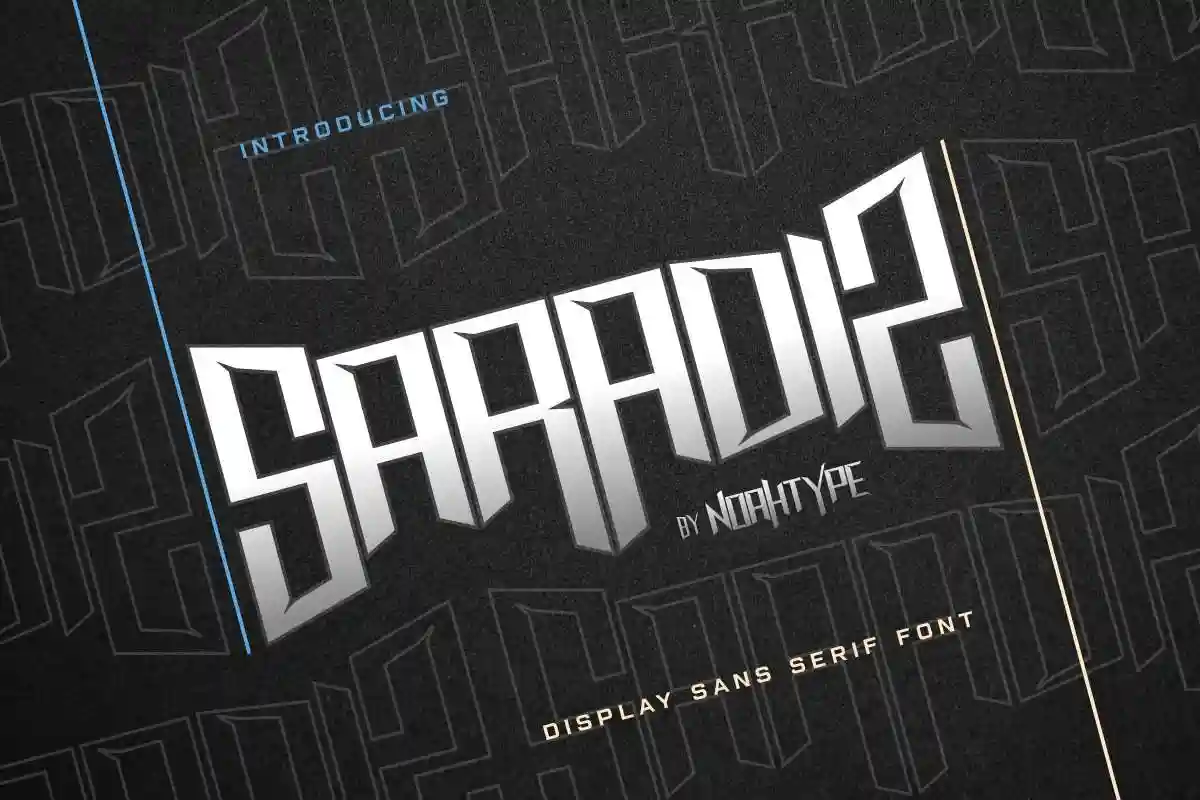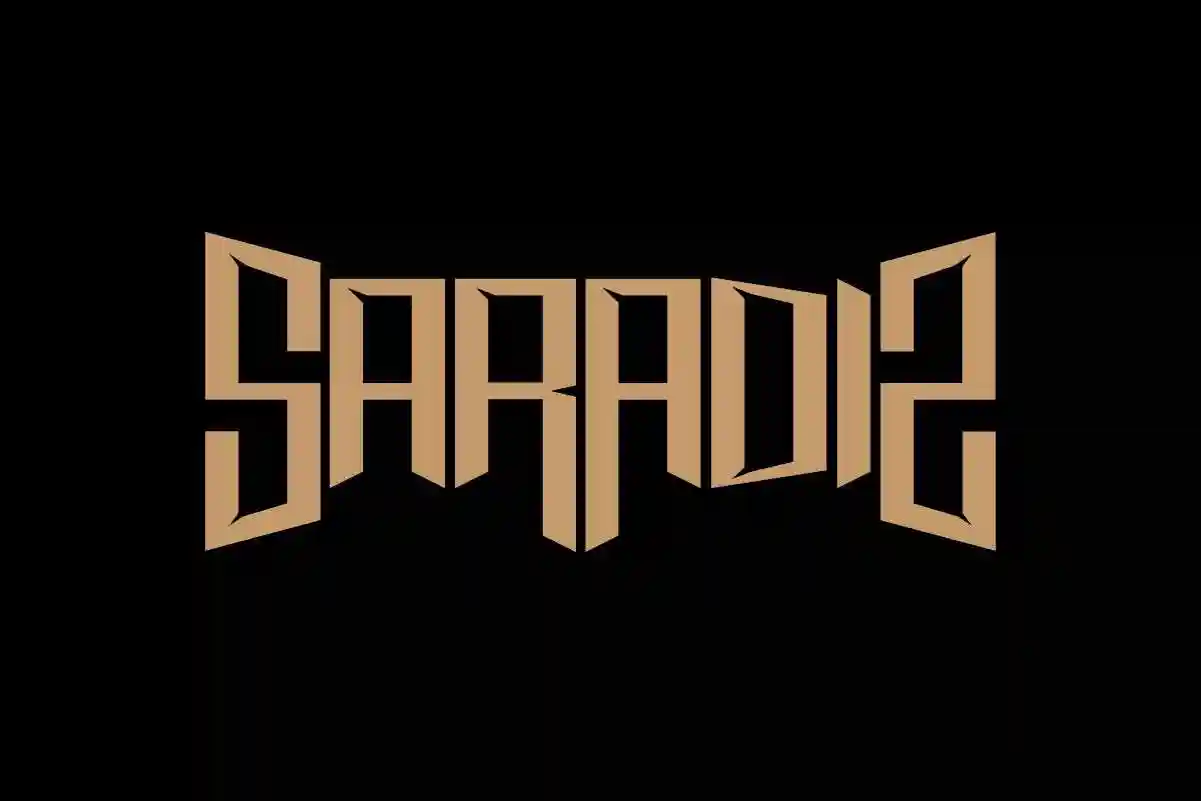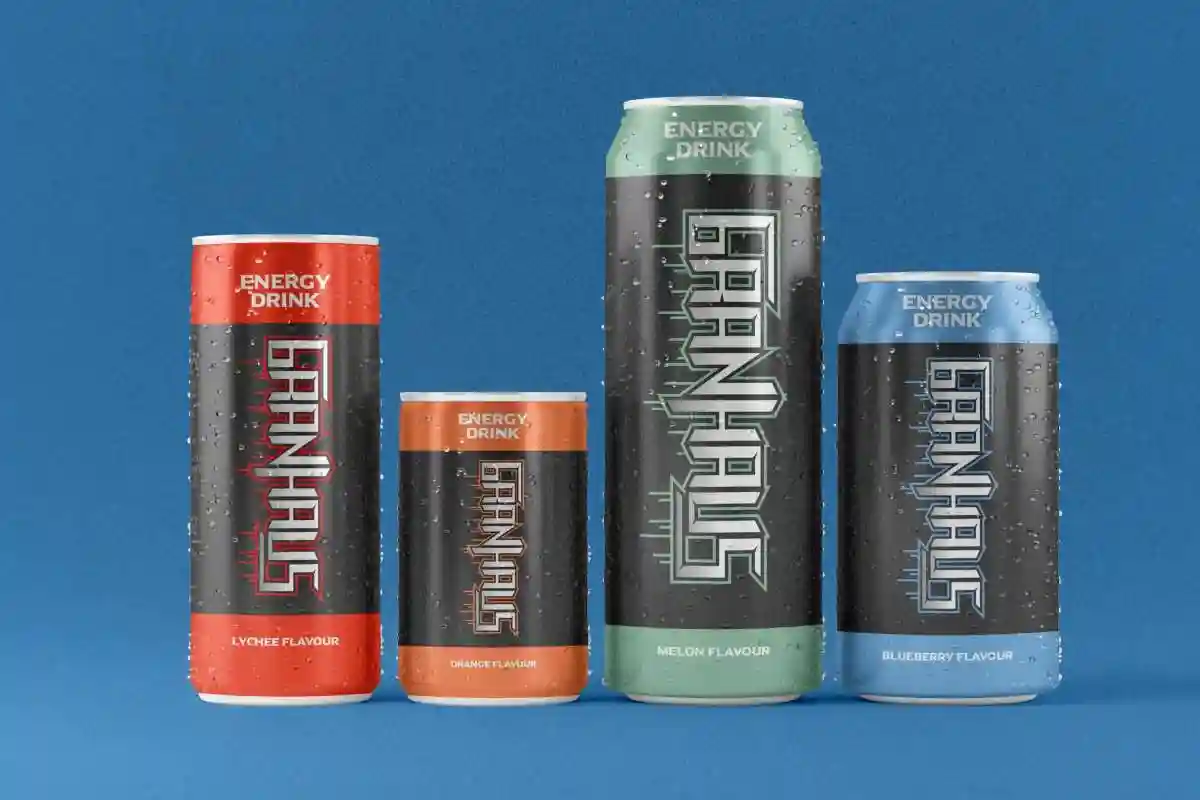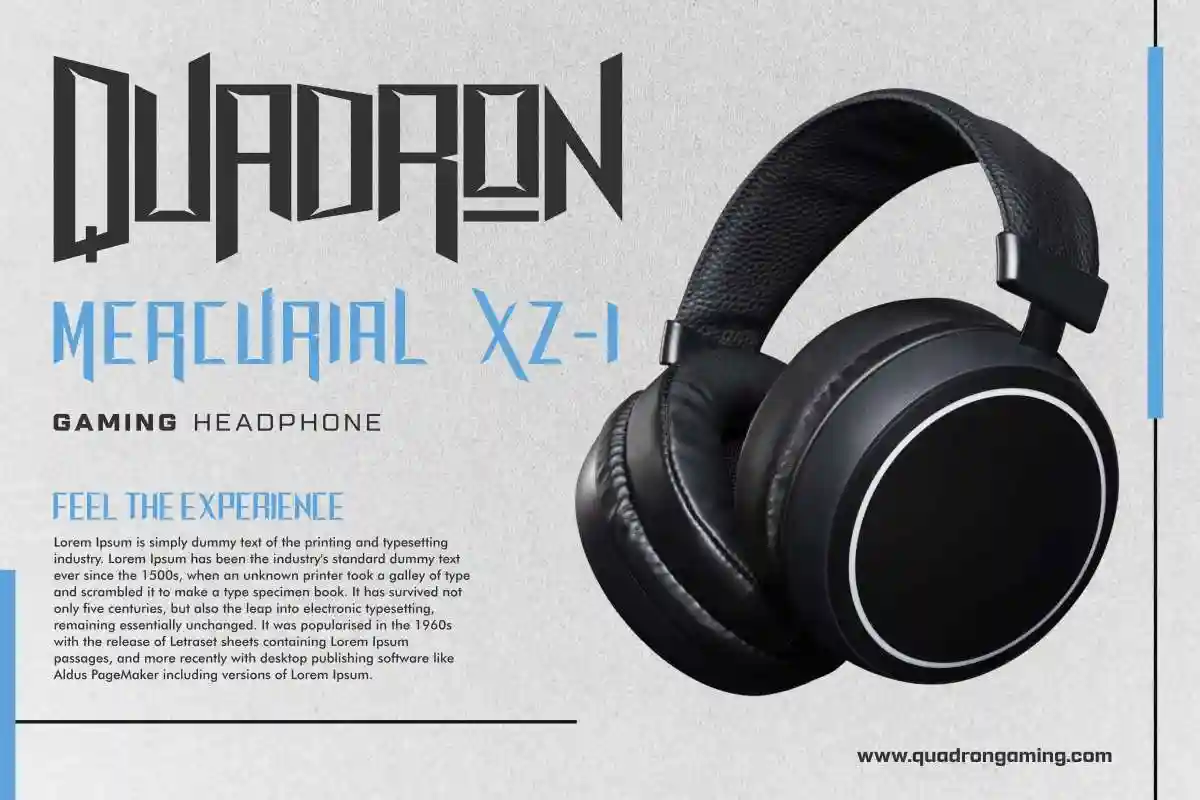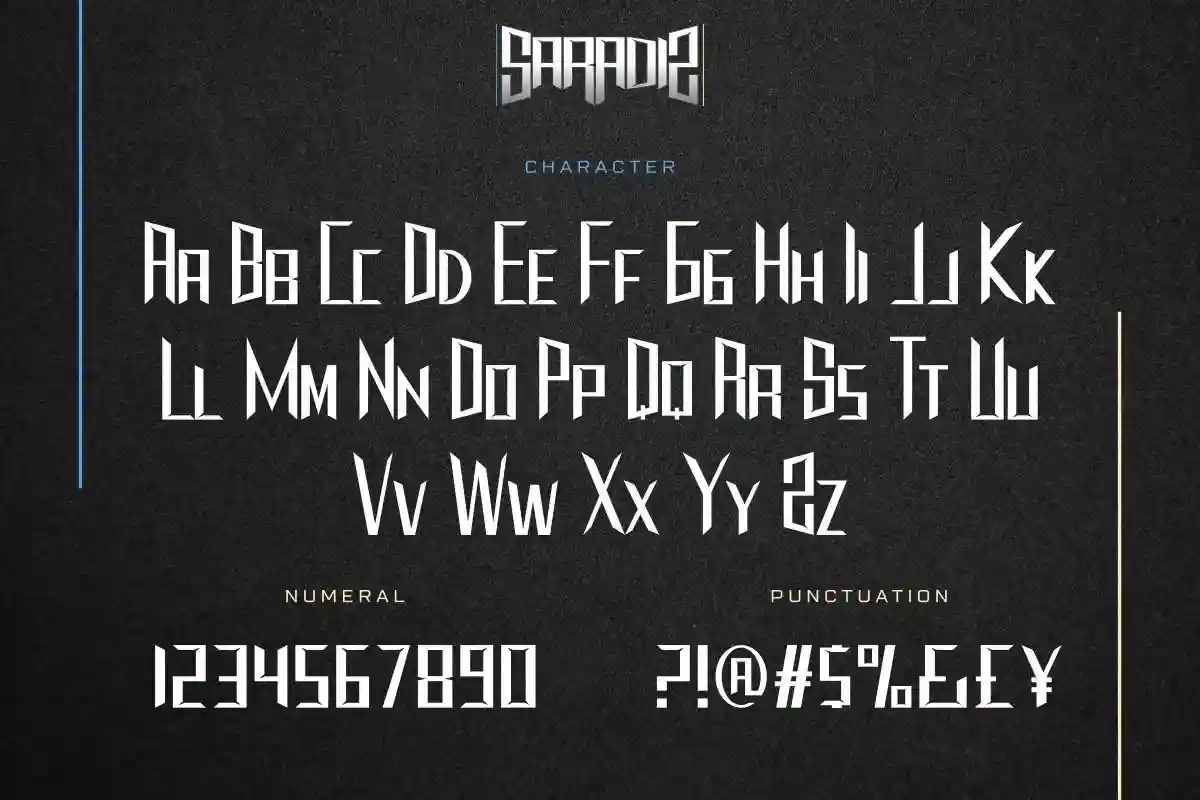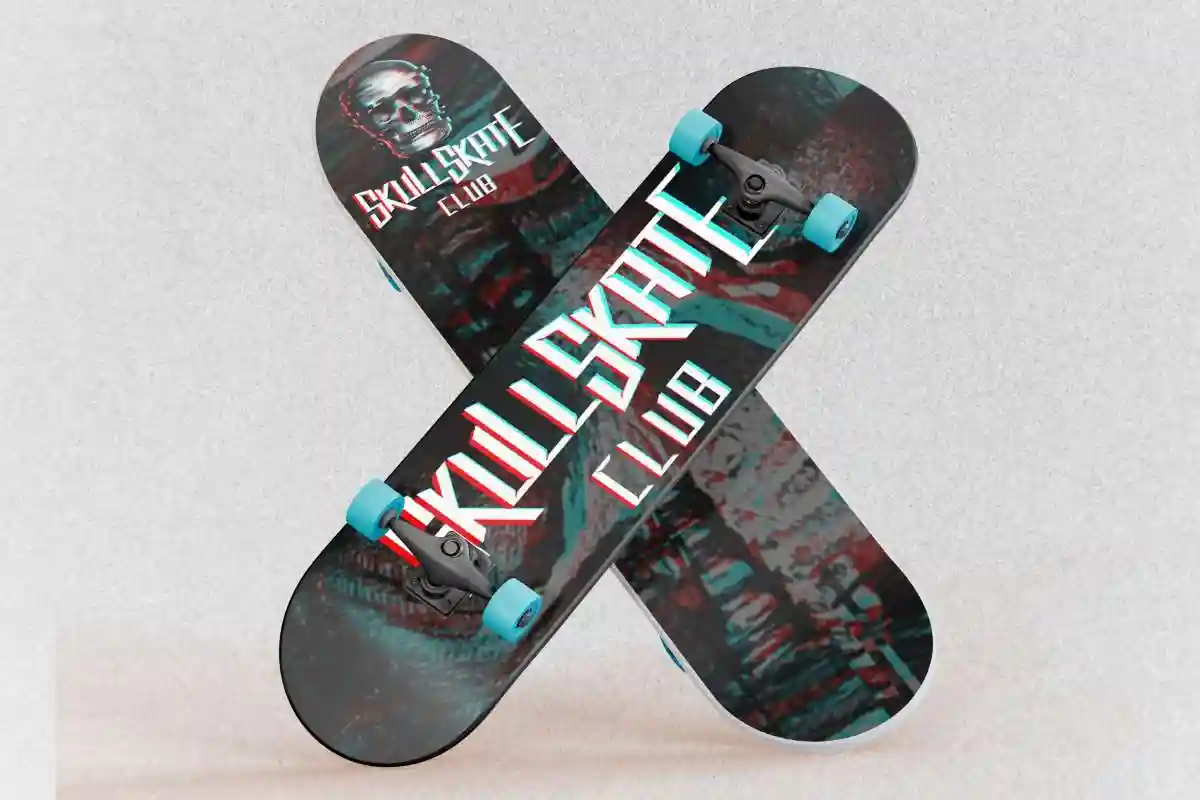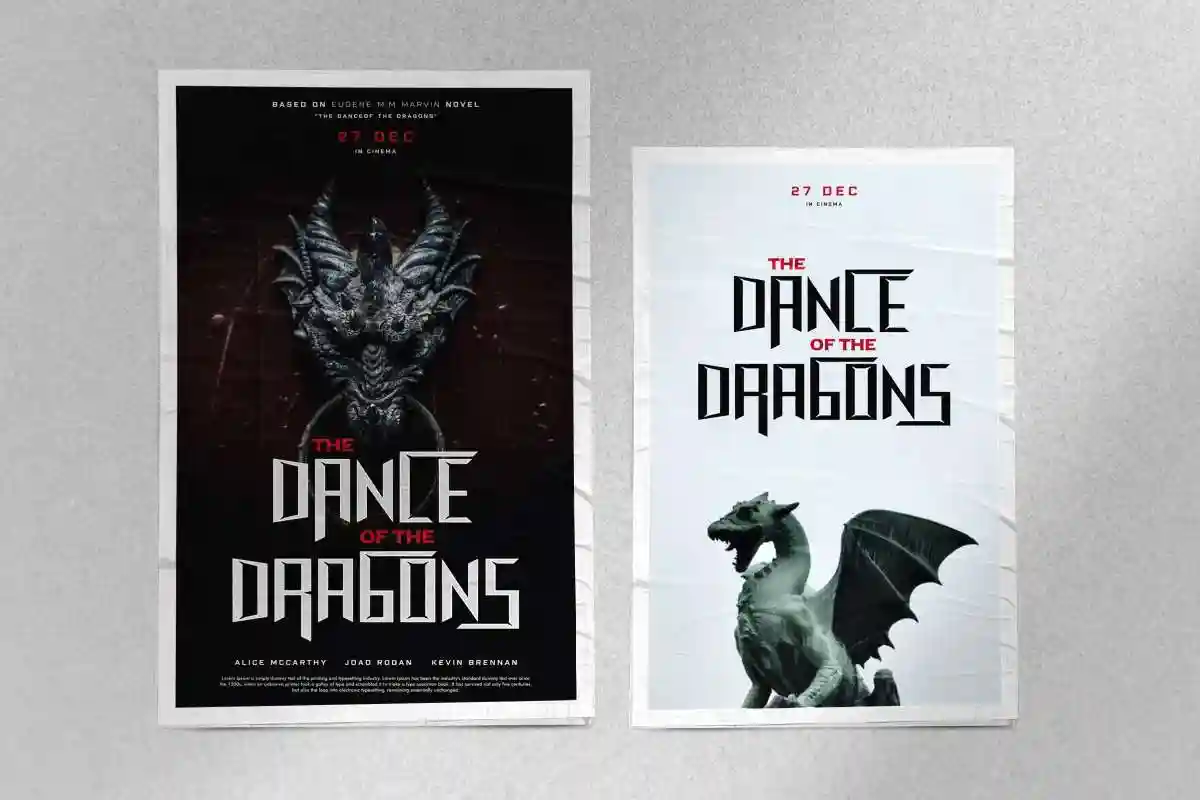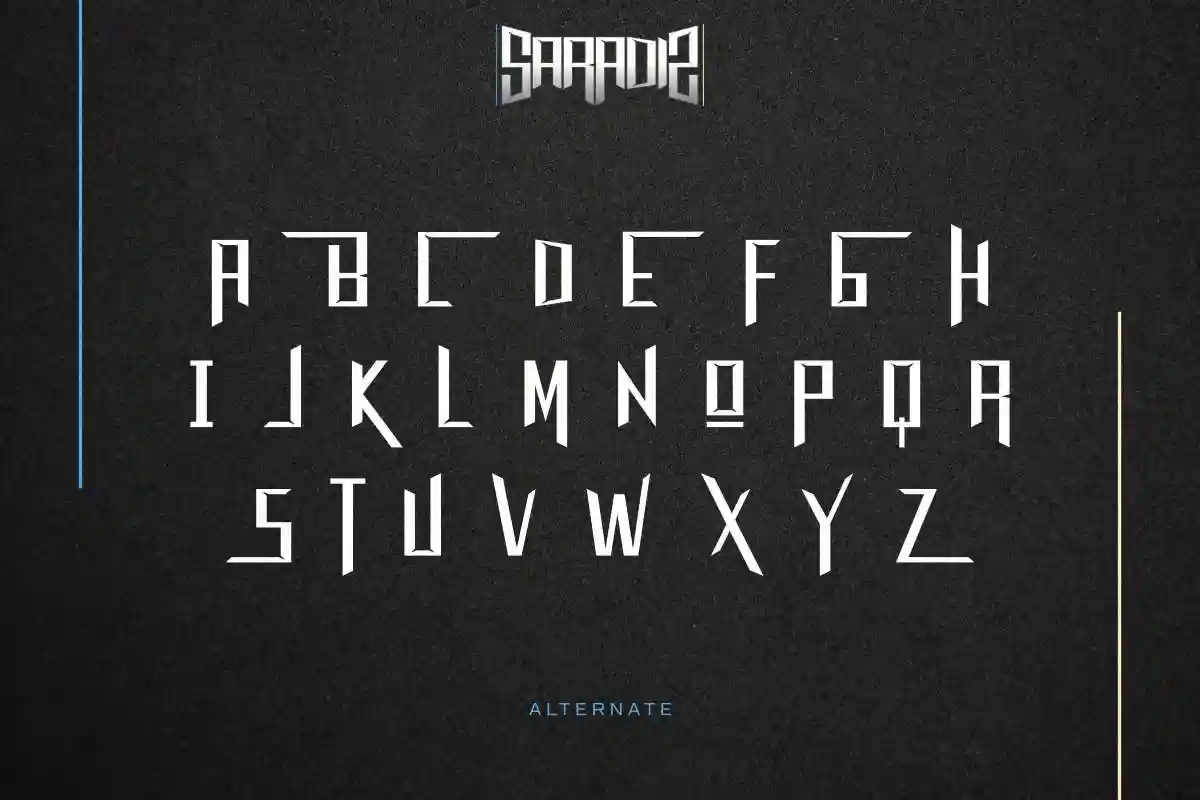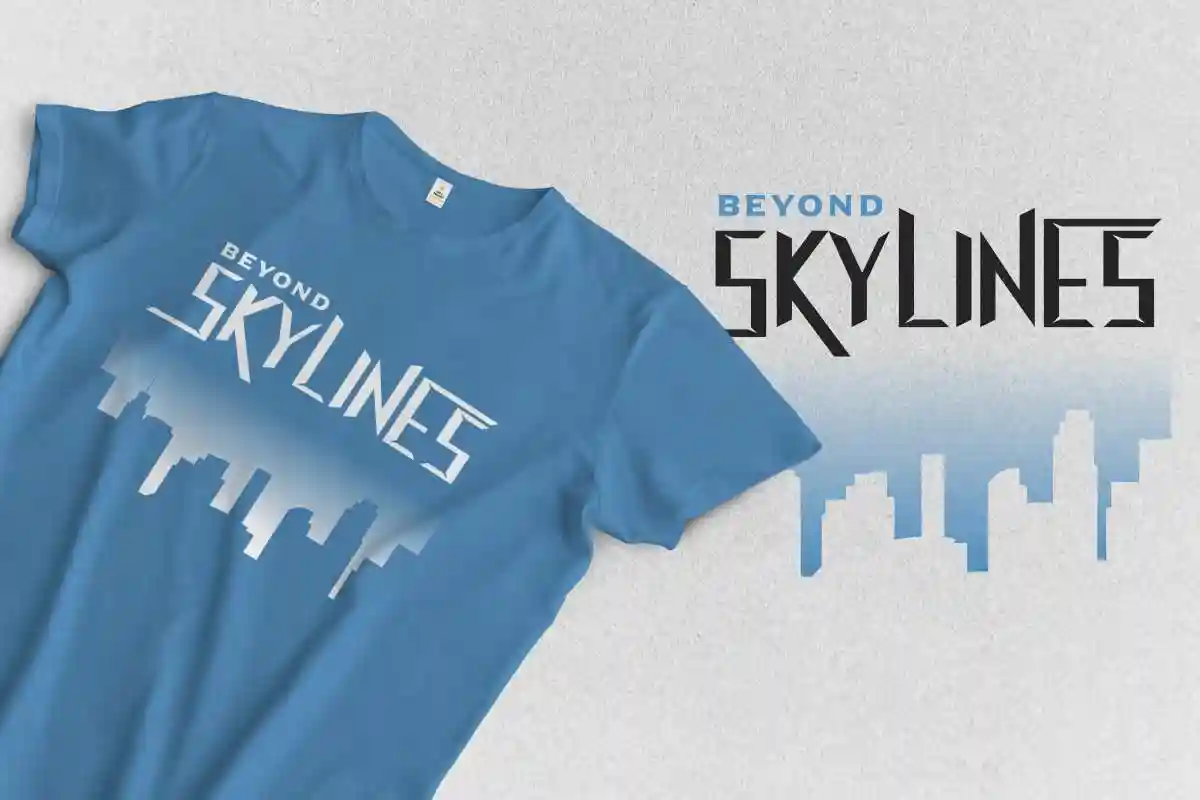
Saradiz is a unique modern sans serif display font with awesome style characters.It has a unique style that will bring the special effect to the design. It will works for games, technology, events, spaceship and any modern things. Saradiz includes full set of Uppercase and Lowercase Basic Characters, Numerals and Punctuation. The font is perfect for many projects, headlines, logos, poster, tittle, products, etc.